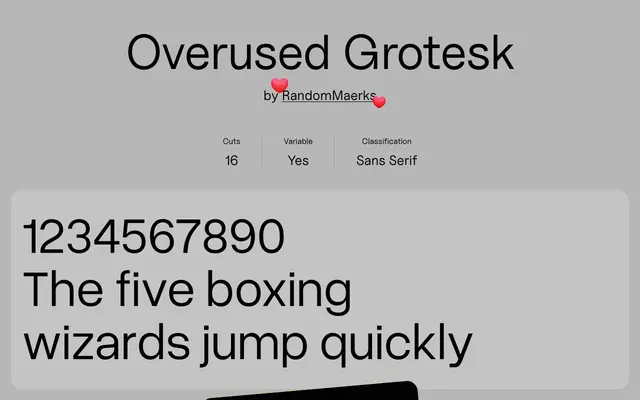
Overused Grotesk
A self-aware grotesque by RandomMaerks, available in 16 cuts including a variable font, released under the SIL Open Font License for free commercial use.
Available in 16 cuts with variable font support, this grotesque takes a tongue-in-cheek stance on the ubiquity of generic sans-serifs. Released under the SIL Open Font License, it permits commercial use, modification and redistribution. A practical workhorse for projects where a clean, neutral grotesque is needed without licensing cost.
Classified as Sans Serif by the foundry; the name and style suggest a neo-grotesque or generic grotesque design, positioned self-referentially as an over-familiar sans.